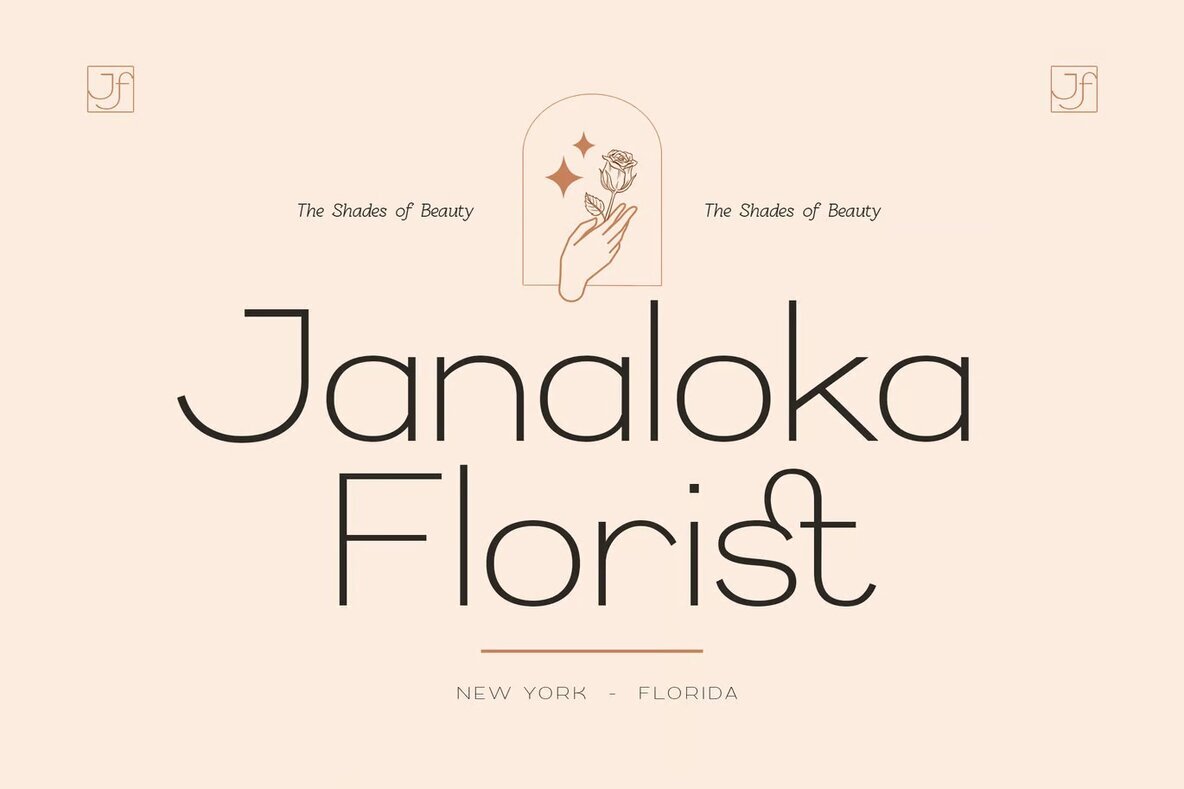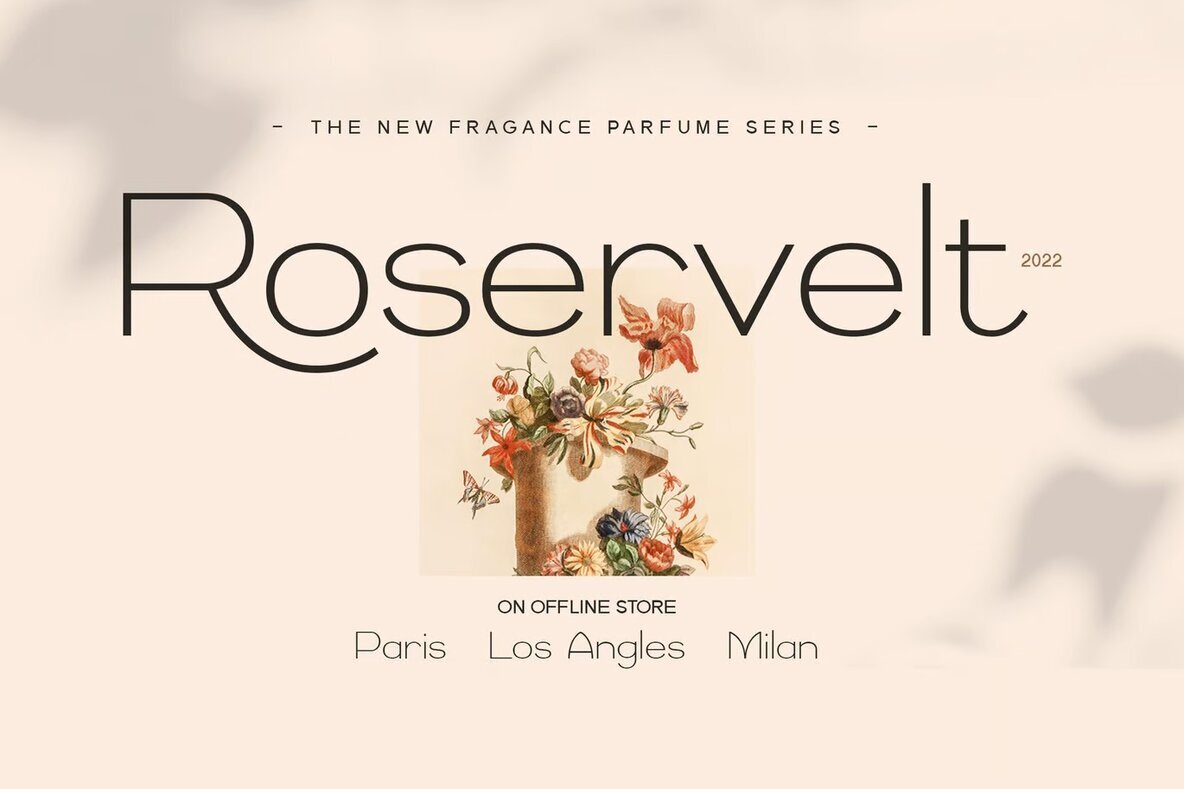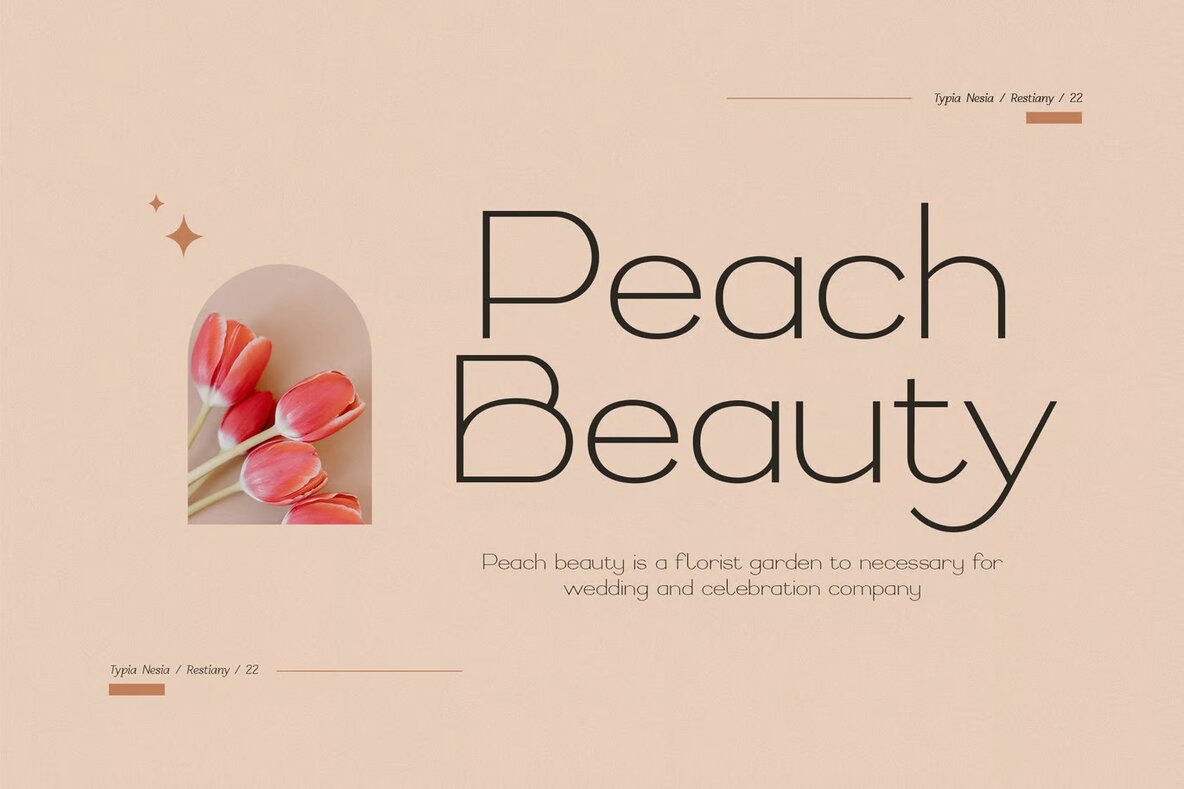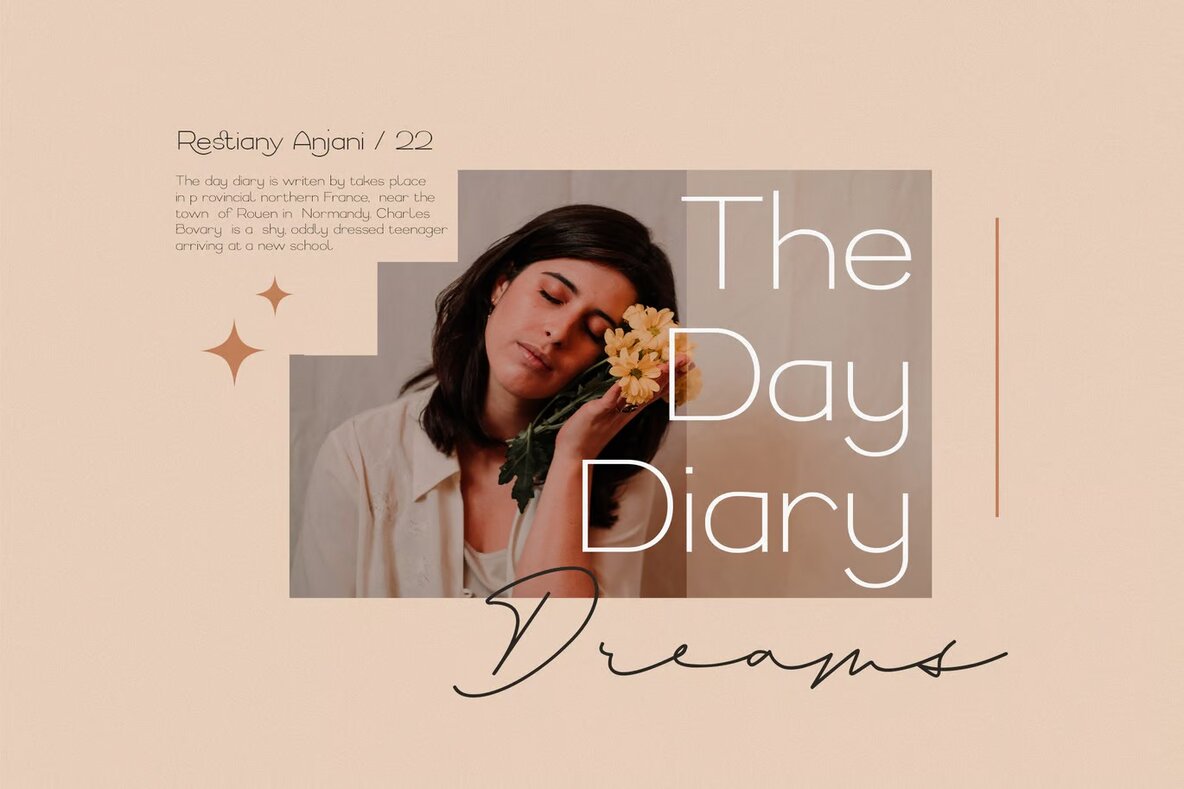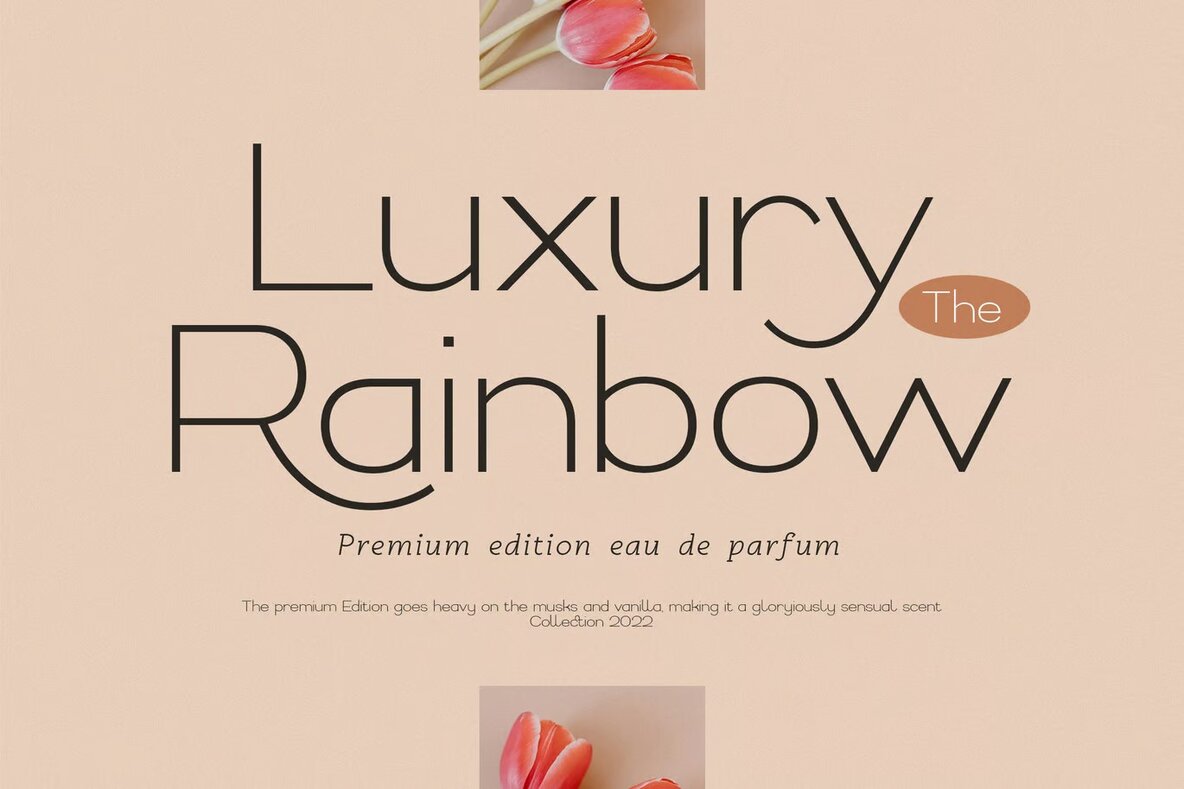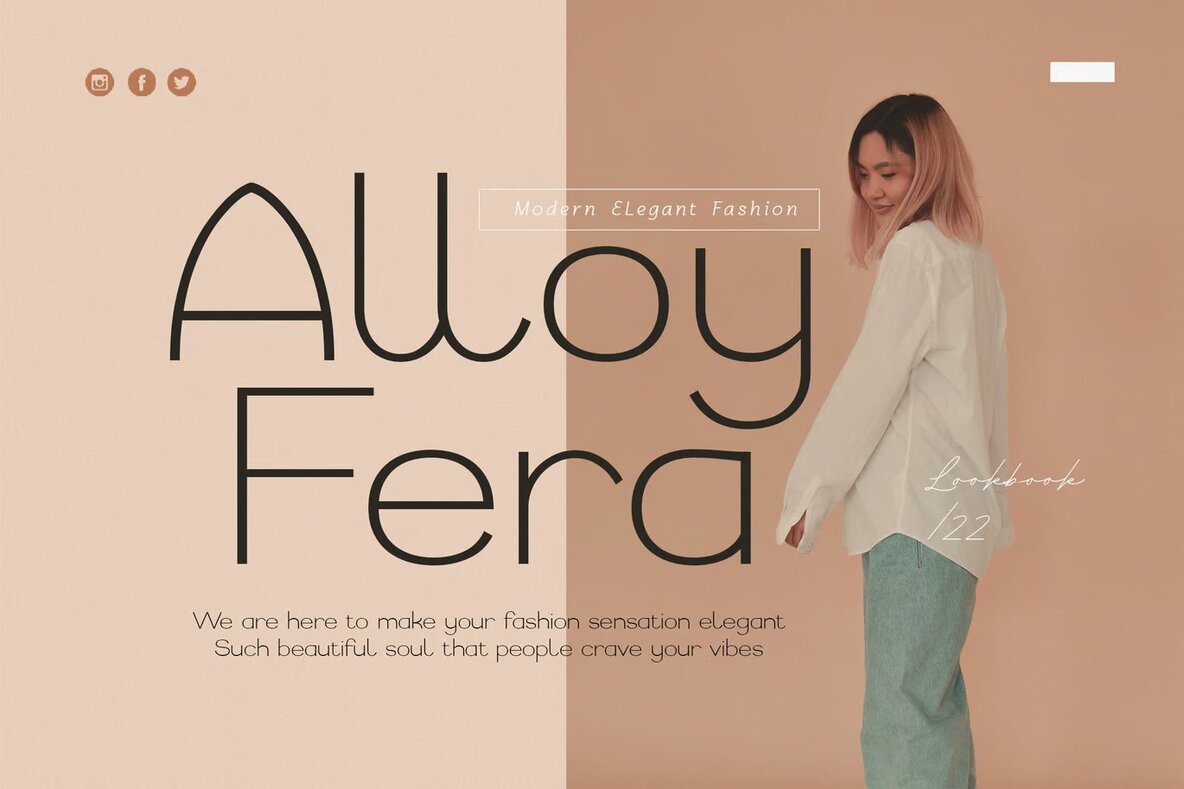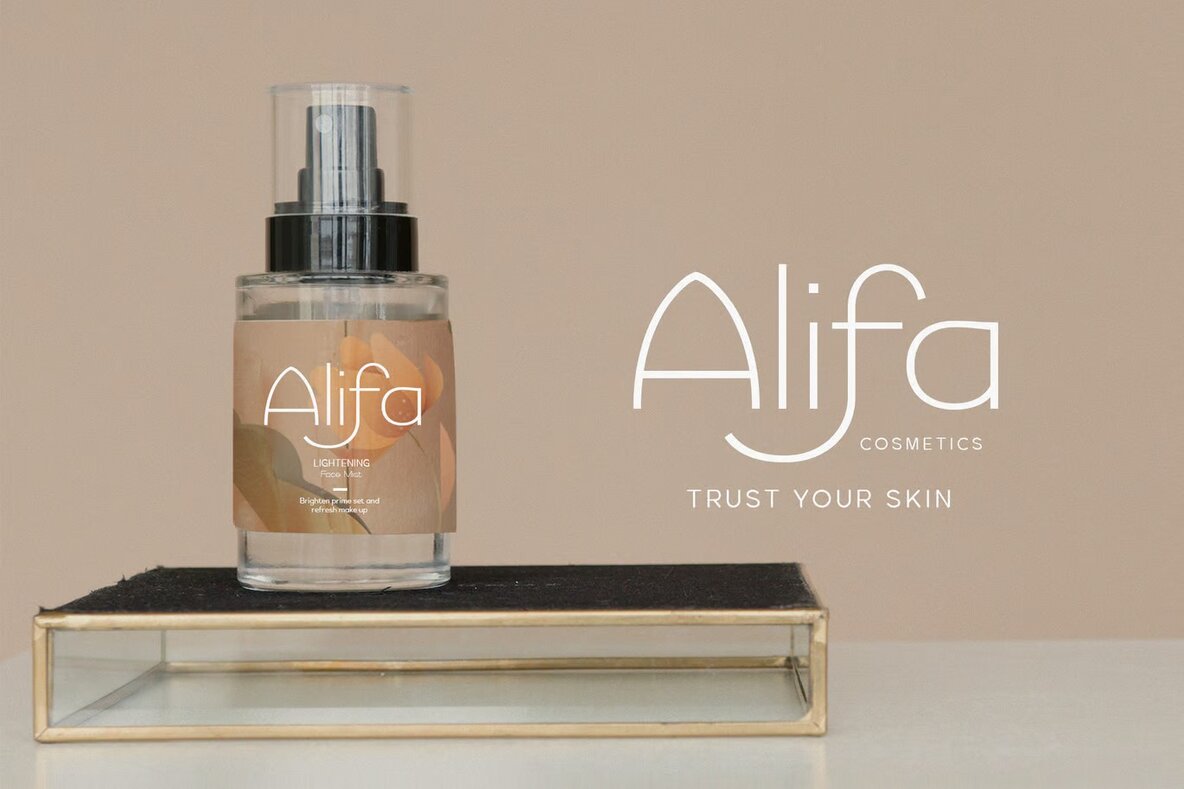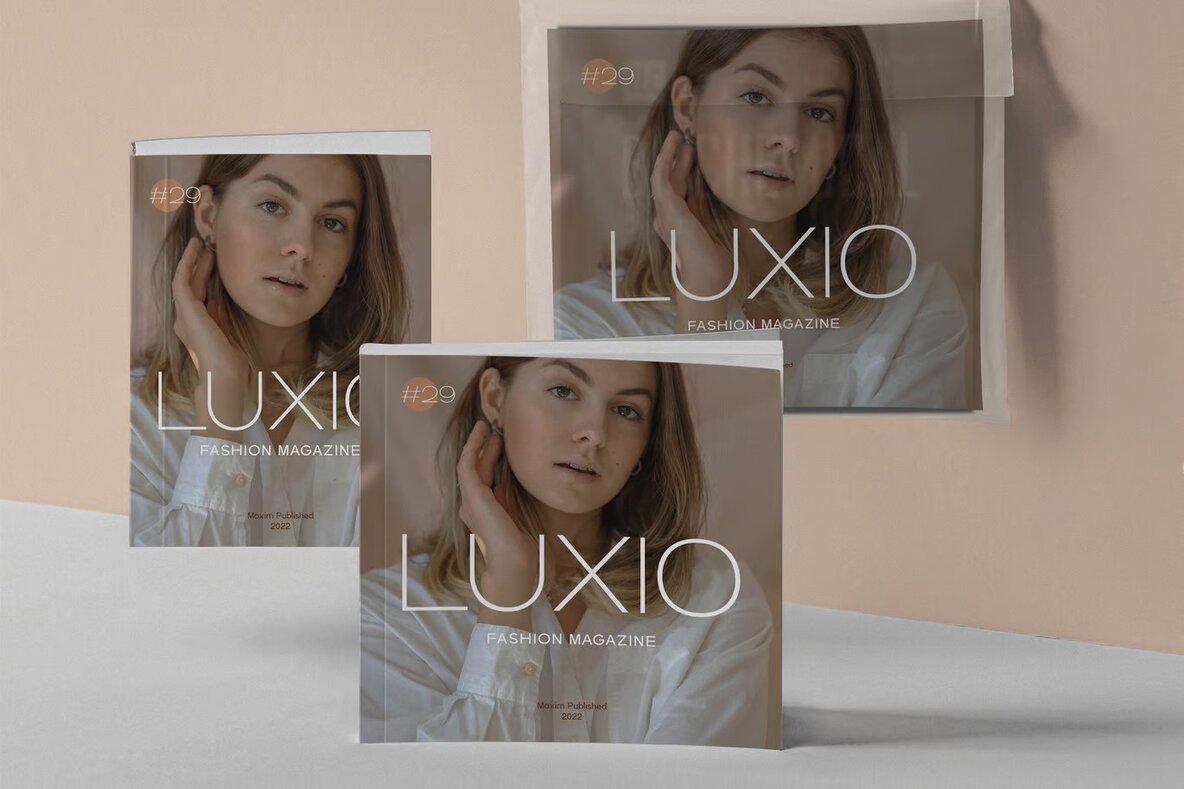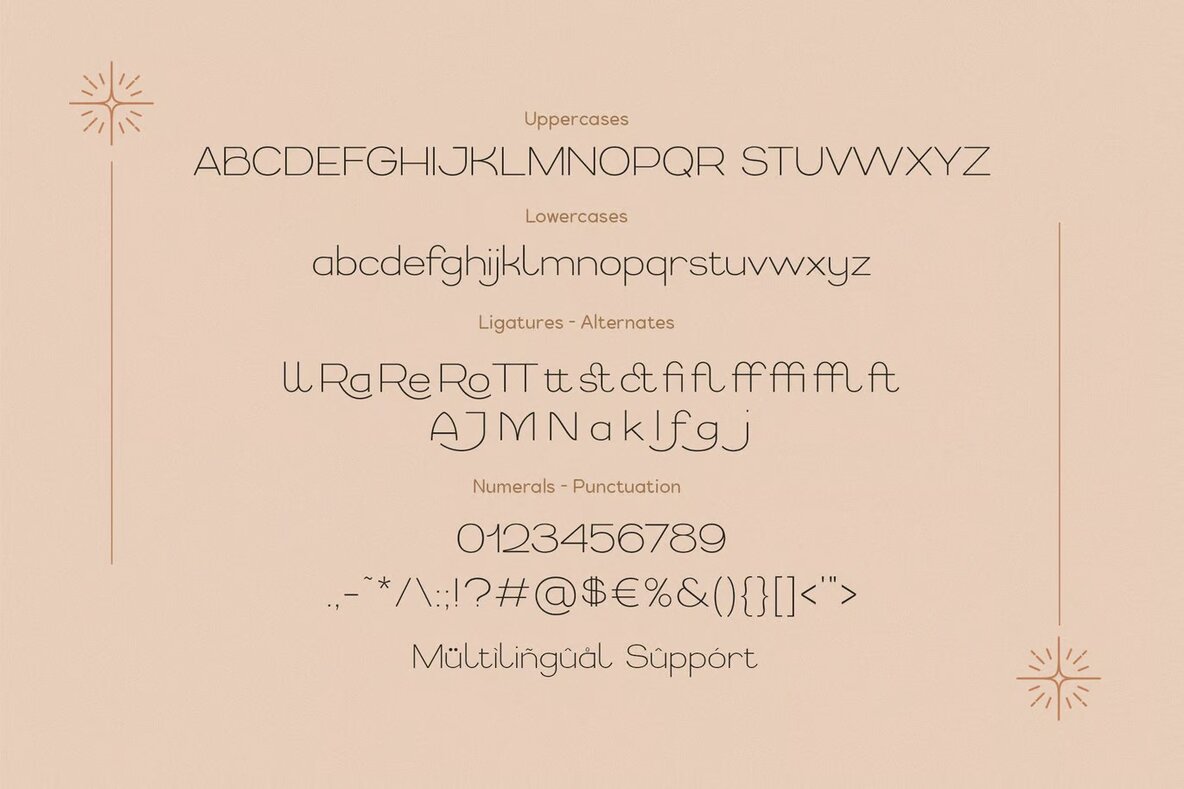
Restiany Font
Restiany Regular
Restiany offers a blend of beauty, elegance, and luxury in an expanded sans serif style. This classic and feminine font is ideal for beauty luxury logos, classic editorial designs, women's magazines, cosmetic branding, fashion promotions, art gallery branding, boutique branding, stationery designs, and modern advertising. It's perfect for delivering a sophisticated touch to your visual projects.
This versatile font is also great for blog designs, wedding card invitations, art quotes, home decor, book or cover titles, and any special event projects. Restiany’s timeless, graceful design makes it suitable for various projects needing a touch of classic elegance and refined style.